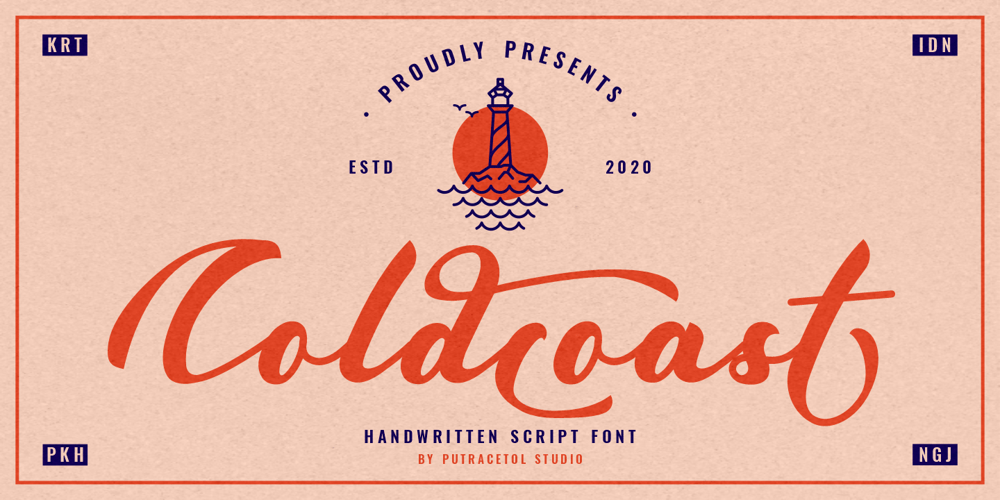
Coldcoast
Coldcoast font
Coldcoast Font Family was designed by Putra Novembria Candra Kusuma and published by Putracetol. Coldcoast contains 1 styles and family package options. Coldcoast is a modern handwritten script that inspired by streetwear and combination hand lettering style.Coldcoast is ideal for logos, badges, labels, apparel, clubs, events, handwritten quotes, product packaging, headers, posters, merchandise, social media posts, greeting cards and more.Coldcoast includes OpenType features like ligatures, alternates and also support multiple languages.